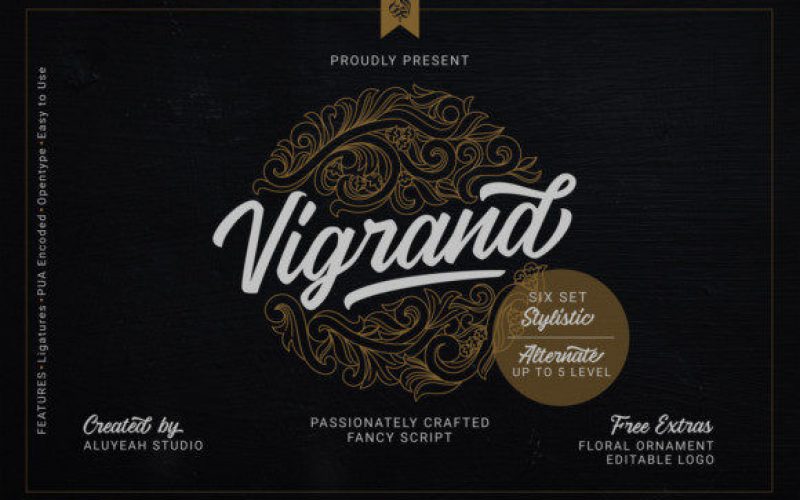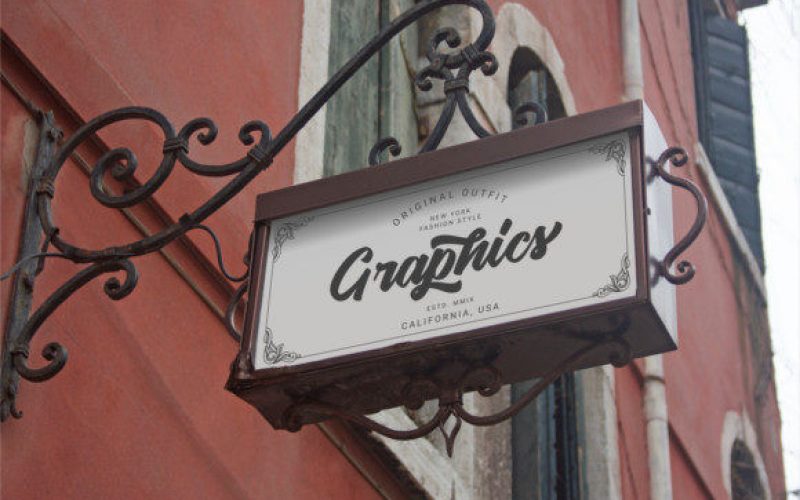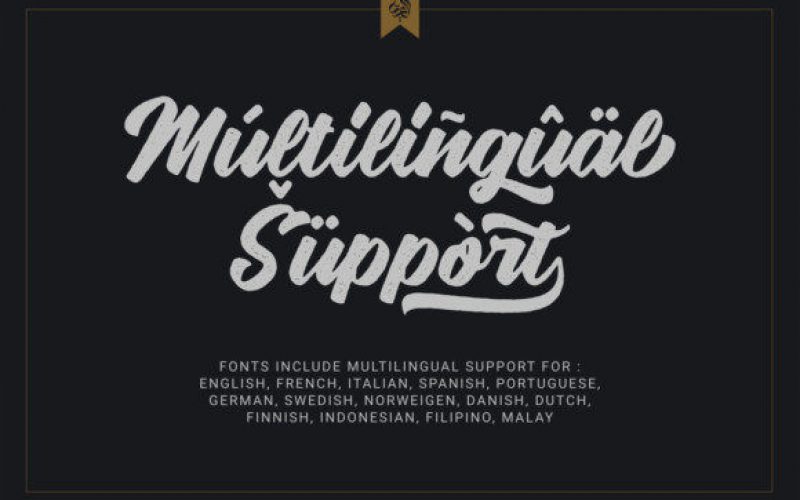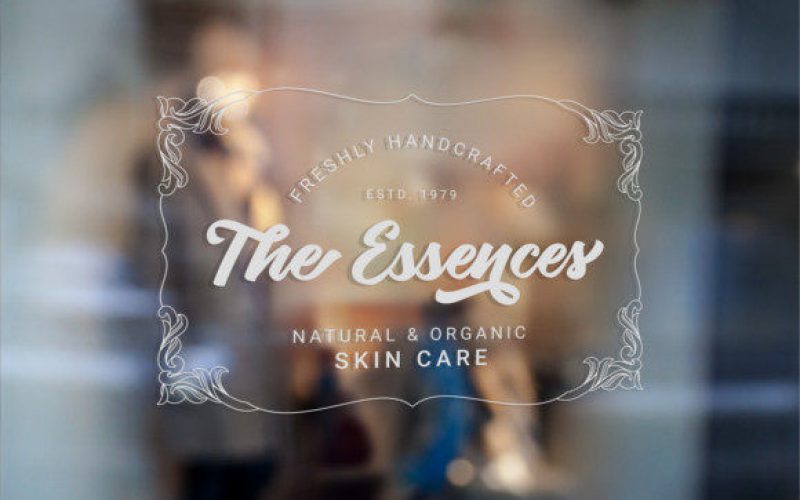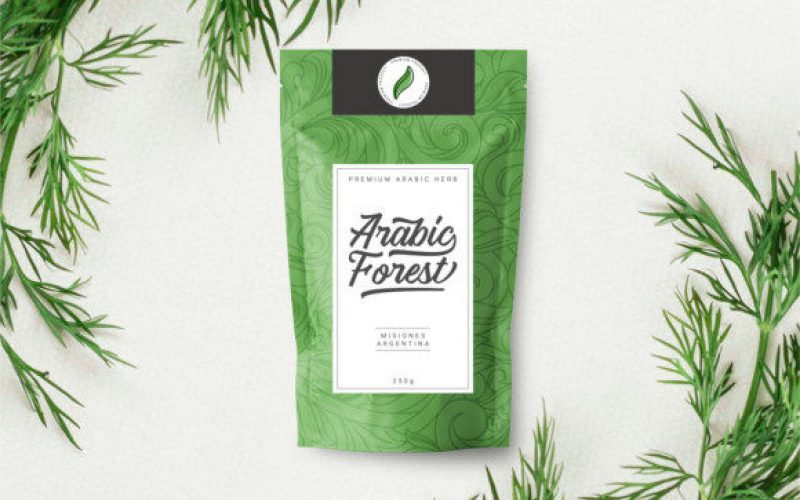
Vigrand Script Font
Vigrand is a stunning handwritten font with a vintage feel. Use it to add a unique charm to any design project.
Designer Name: | Aluyeah Studio |
Classification: | Script, Various |